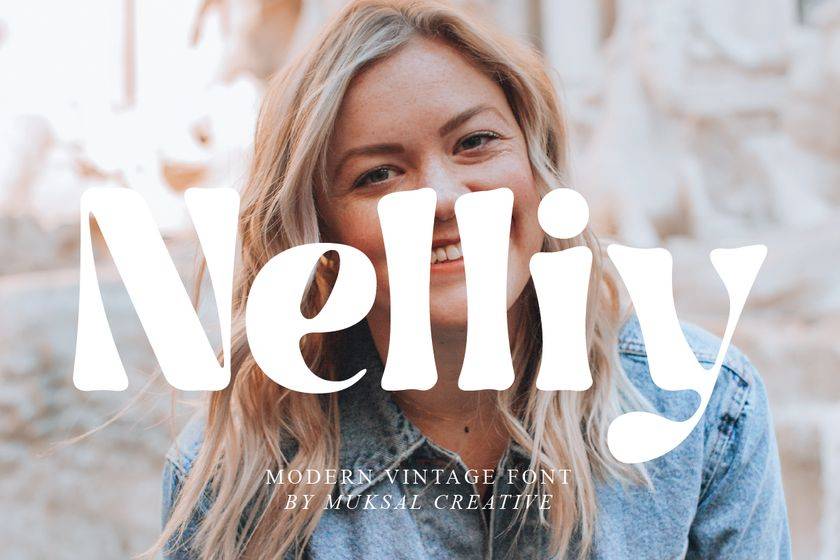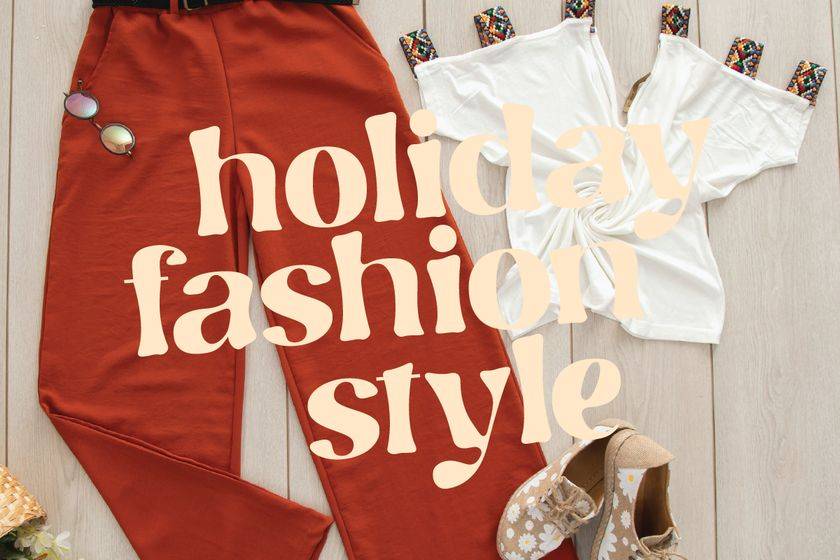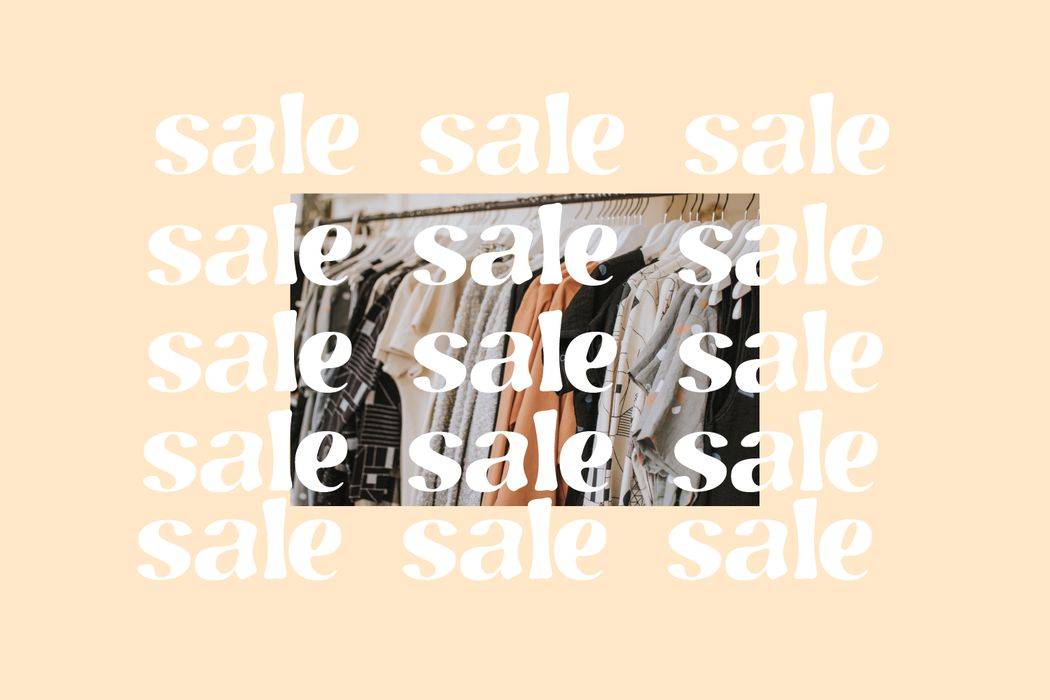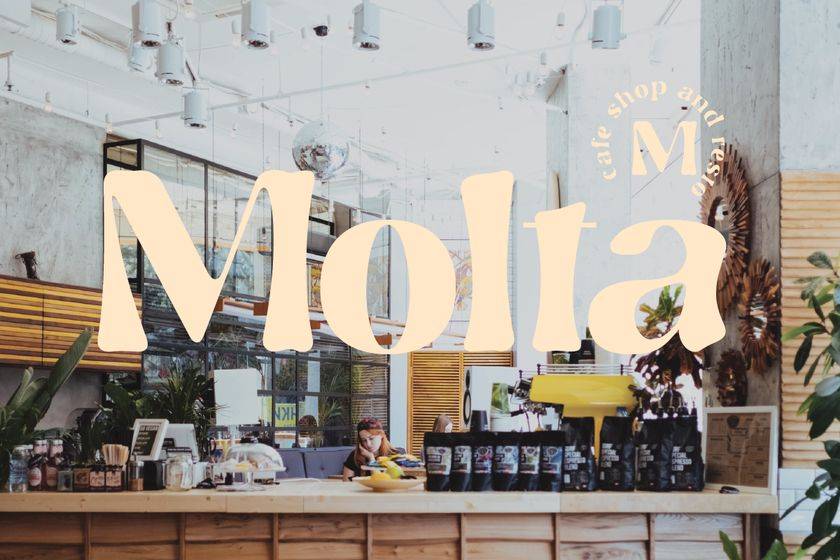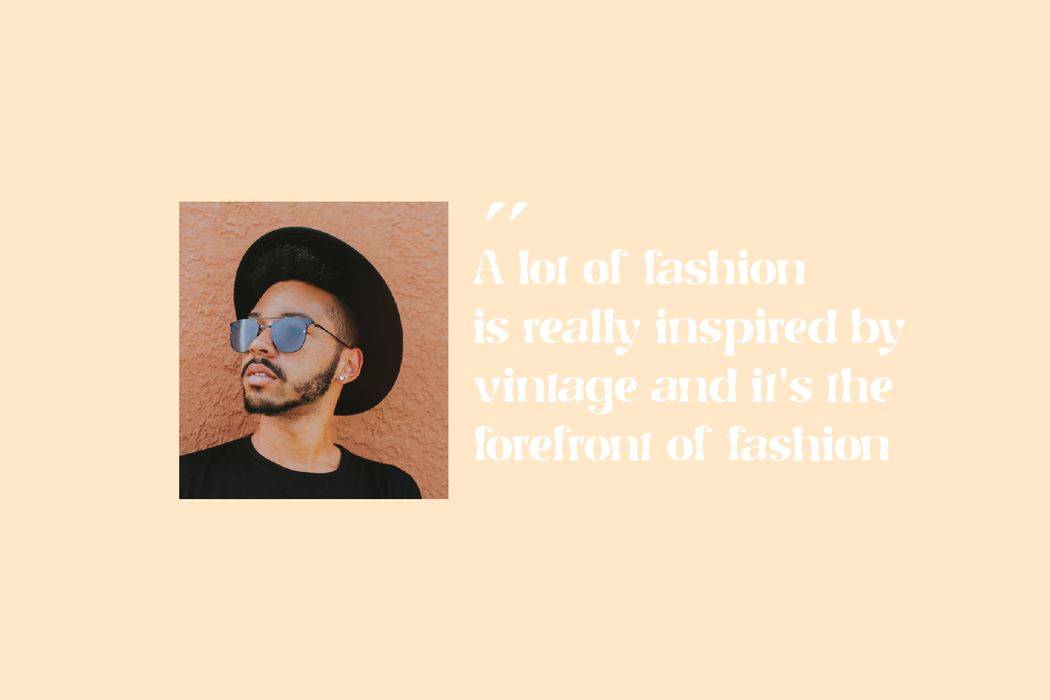
Nelliy is a playful serif font with a bold weight and a unique, slightly condensed structure that features high contrast between thick and thin strokes. Its quirky, rounded serifs and lively letterforms bring a fun yet elegant personality, making it perfect for eye-catching headlines, creative branding, and whimsical editorial projects. This font works well when you want to add a touch of charm and distinctiveness to your design while maintaining readability.
Nelliy Font
About Nelliy Font